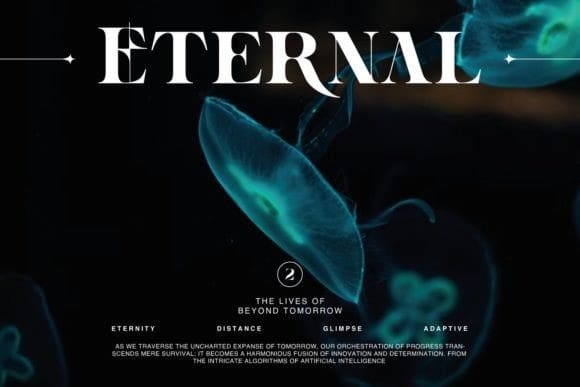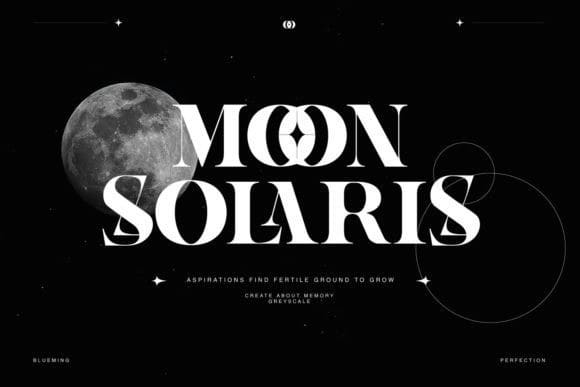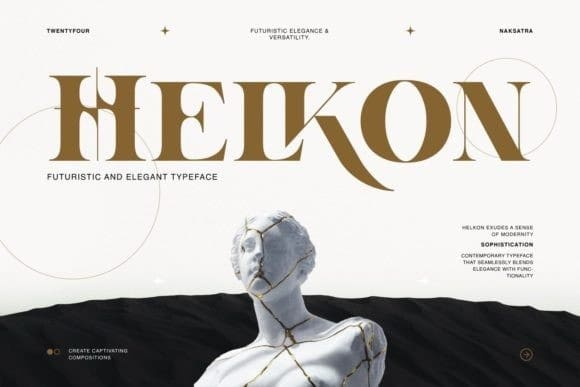
Helkon Font
Helkon Font: a fusion of elegance and cyber-inspired design, meticulously crafted to elevate your projects with a touch of sophistication and modernity. Helkon Font embodies the sleek lines and minimalist aesthetic reminiscent of cybernetic landscapes, while also embracing the timeless grace of classic typography. Its design is a harmonious blend of sharp edges and fluid curves, capturing the essence of both digital precision and refined elegance.